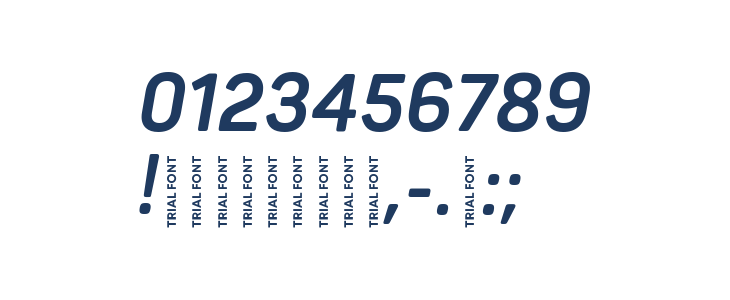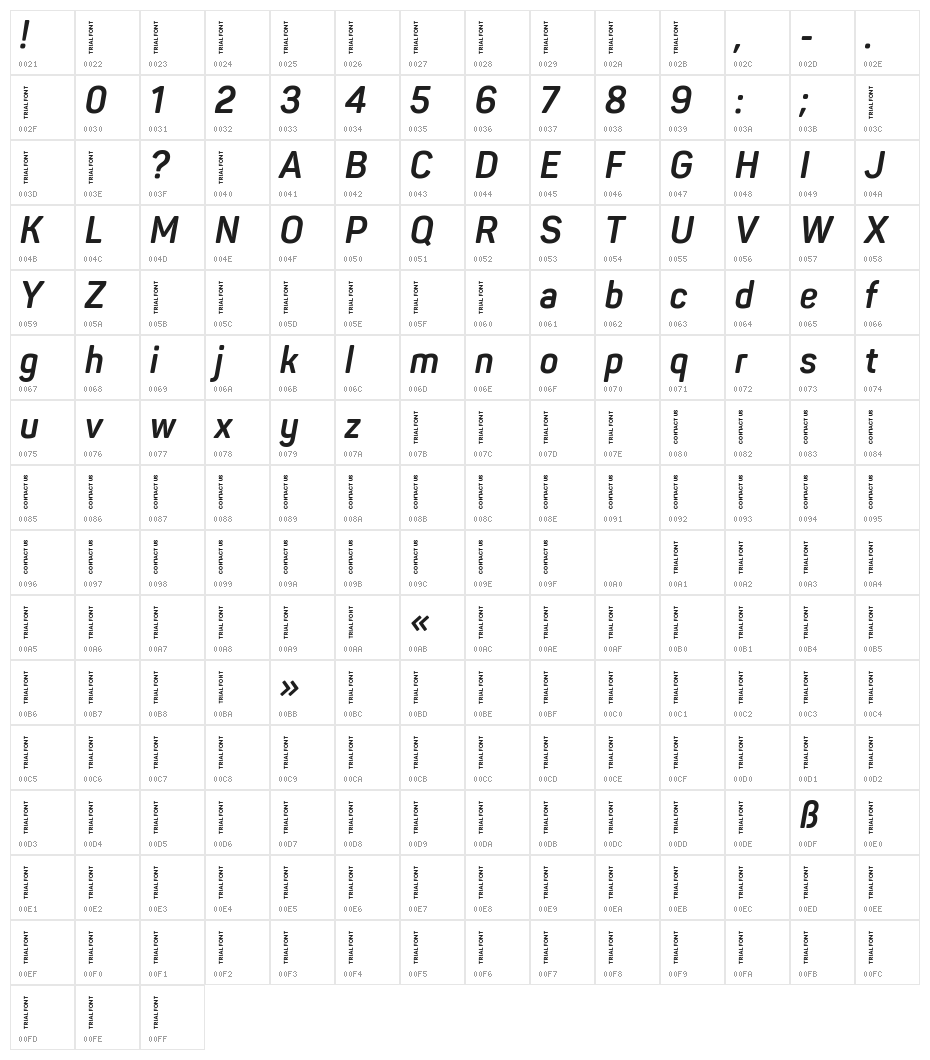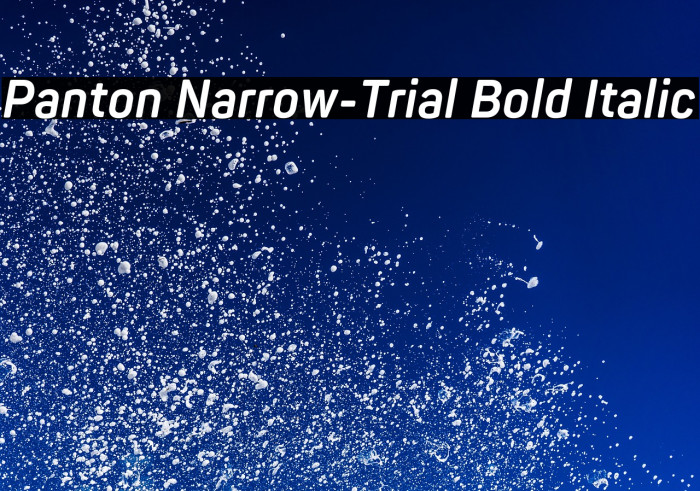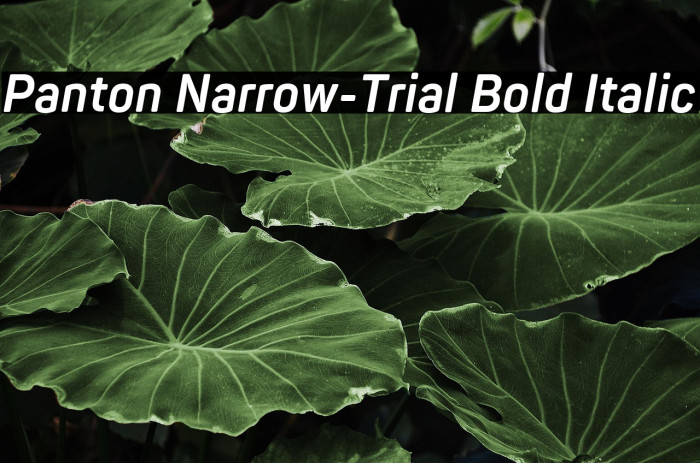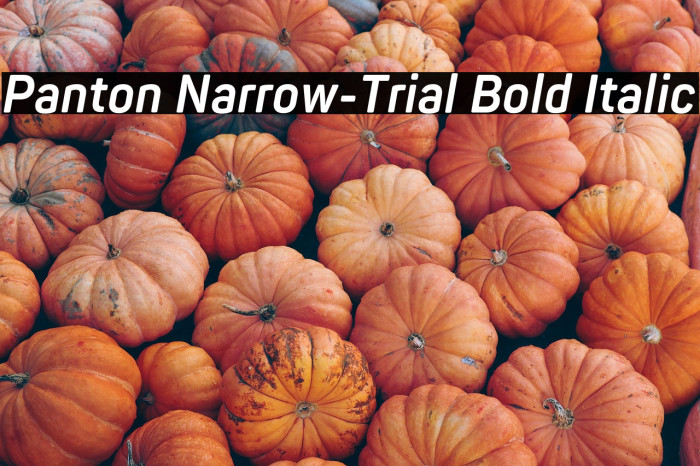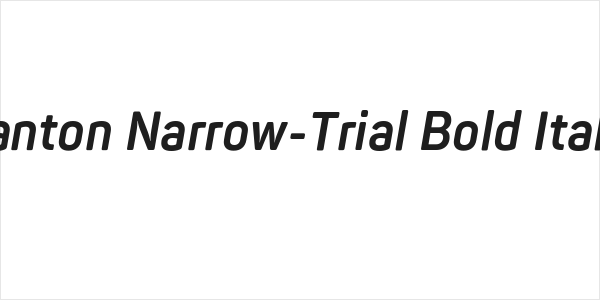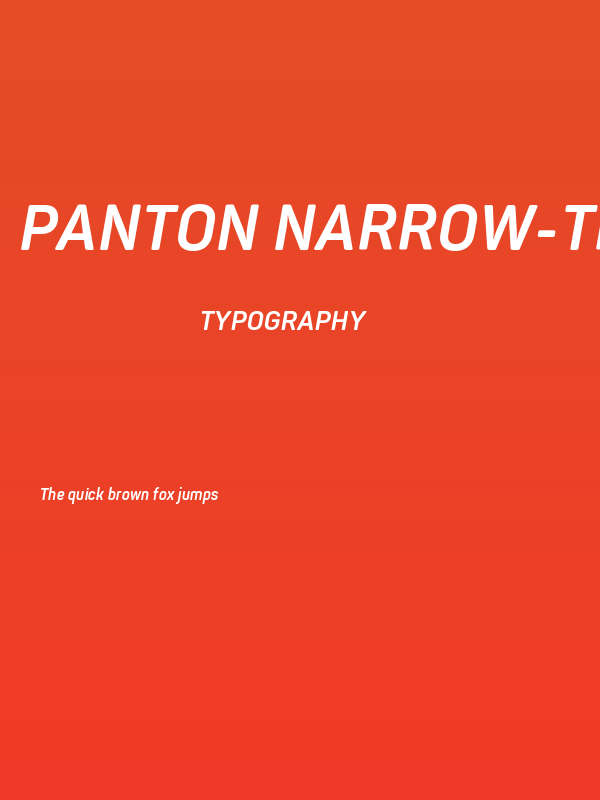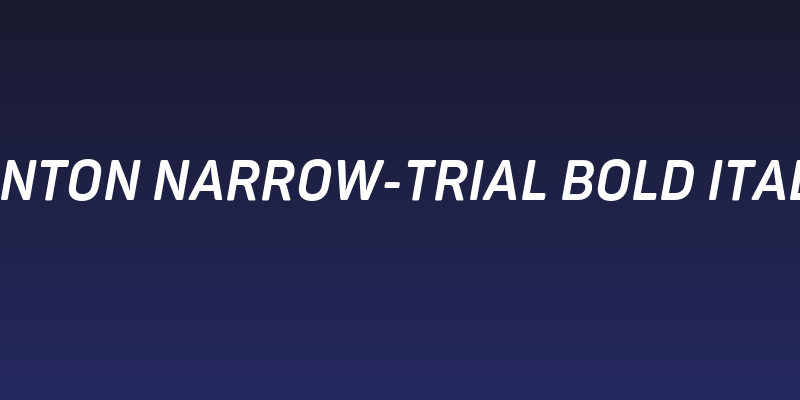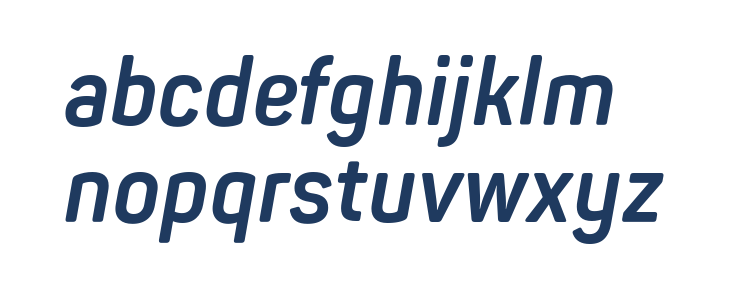
Panton Narrow-Trial Bold Italic Font
Panton Narrow-Trial Bold Italic Description
This font features a sleek and modern design with a narrow structure, giving it a compact and efficient appearance. The bold weight adds a strong presence, while the italic style introduces a dynamic and forward-leaning aspect. Each character is crafted with precision, maintaining a consistent stroke width that enhances readability. The font's clean lines and smooth curves make it versatile for various design applications. Its geometric shapes and slightly rounded edges provide a contemporary feel, suitable for both digital and print media.
| Use Case | Headlines, Logos, Digital interfaces |
| Proposed Projects | Ideal for branding, advertising, headlines, and digital interfaces where a modern and impactful look is desired. |